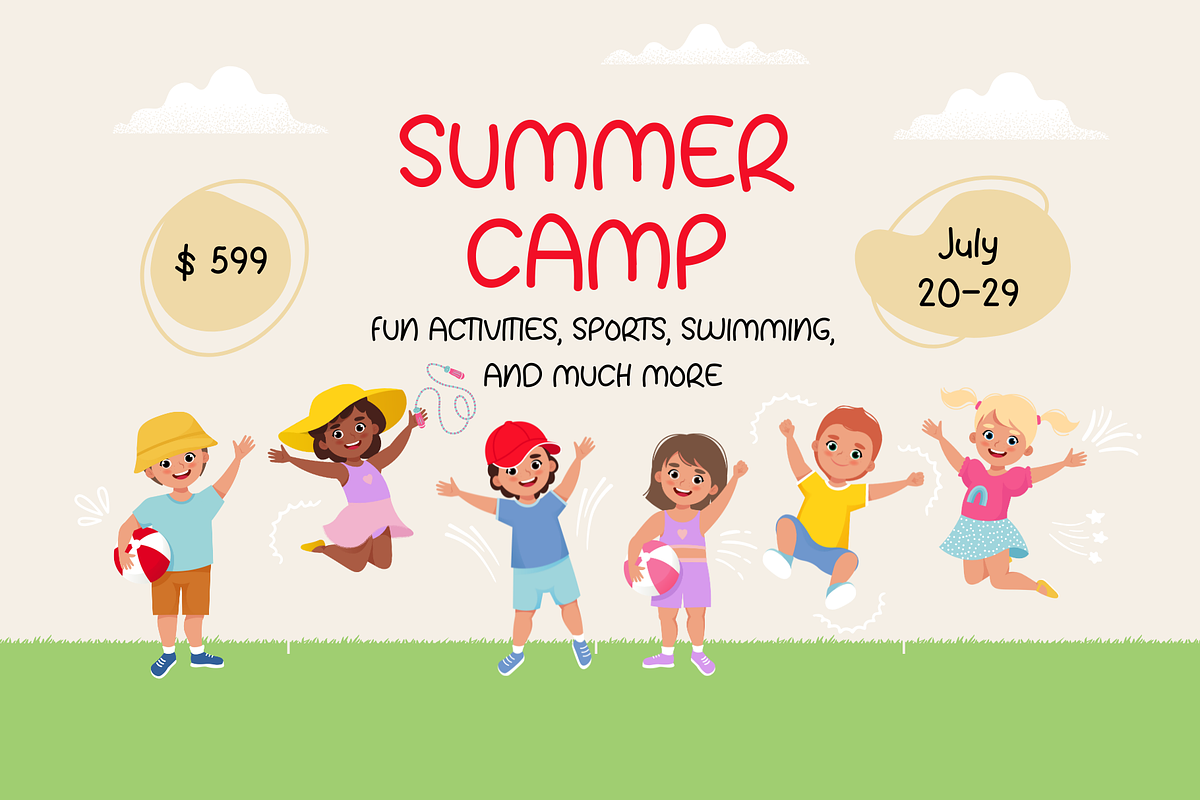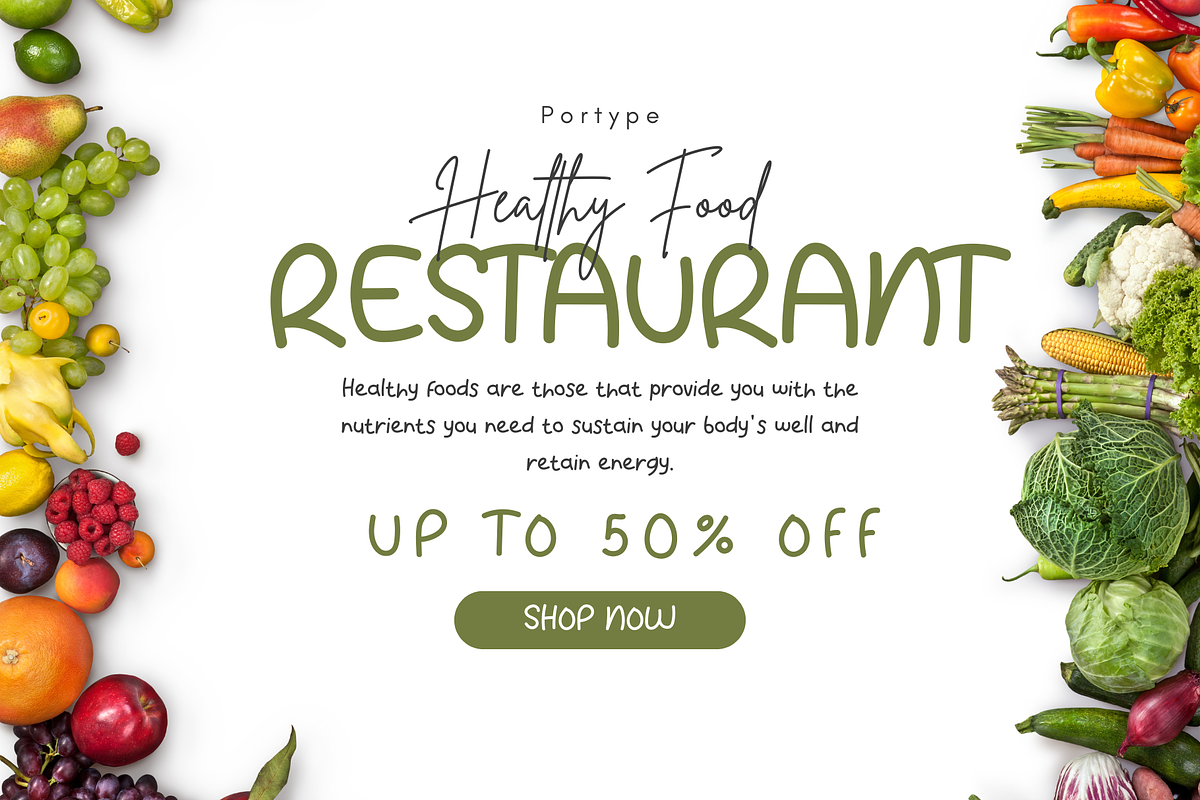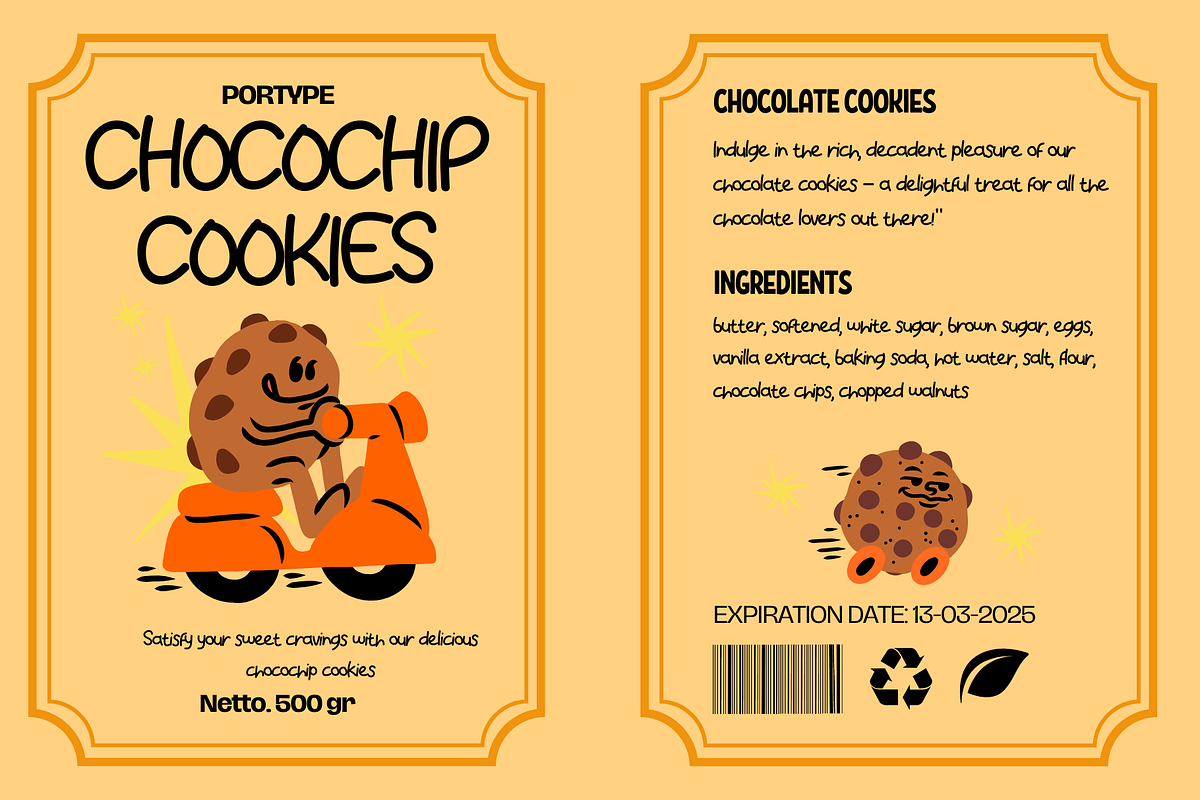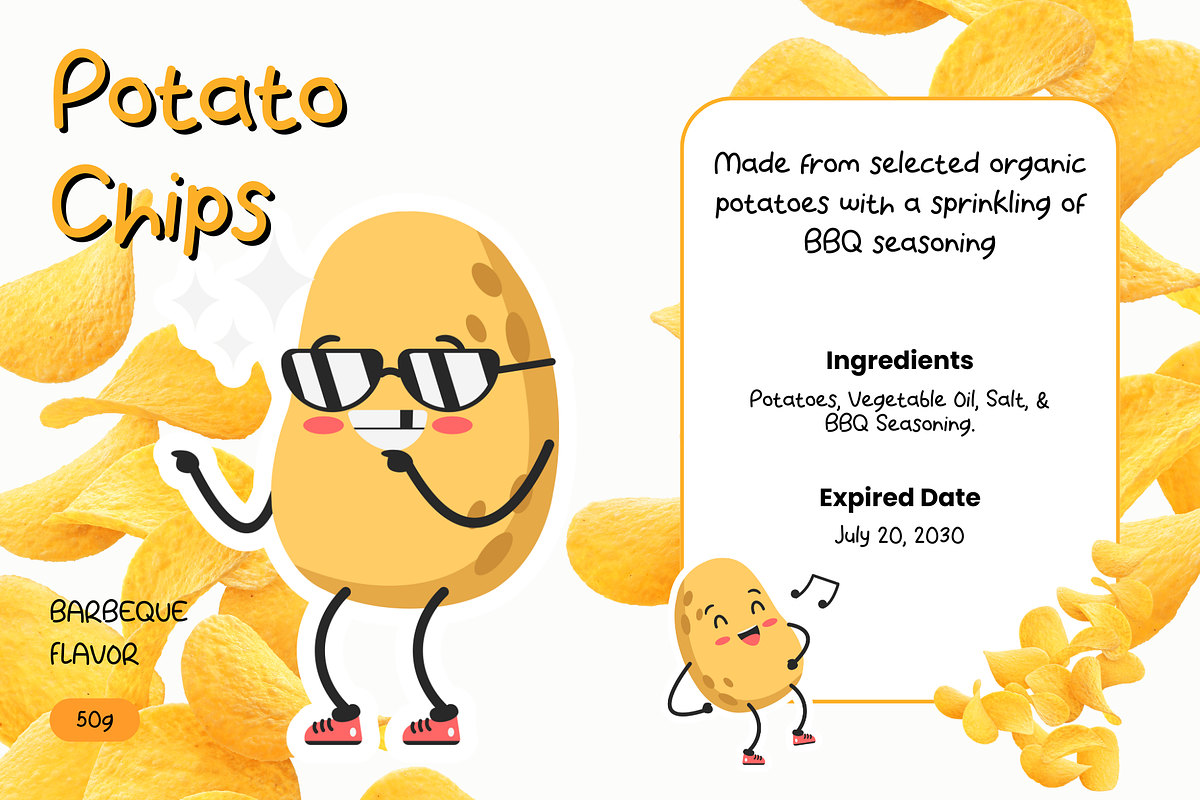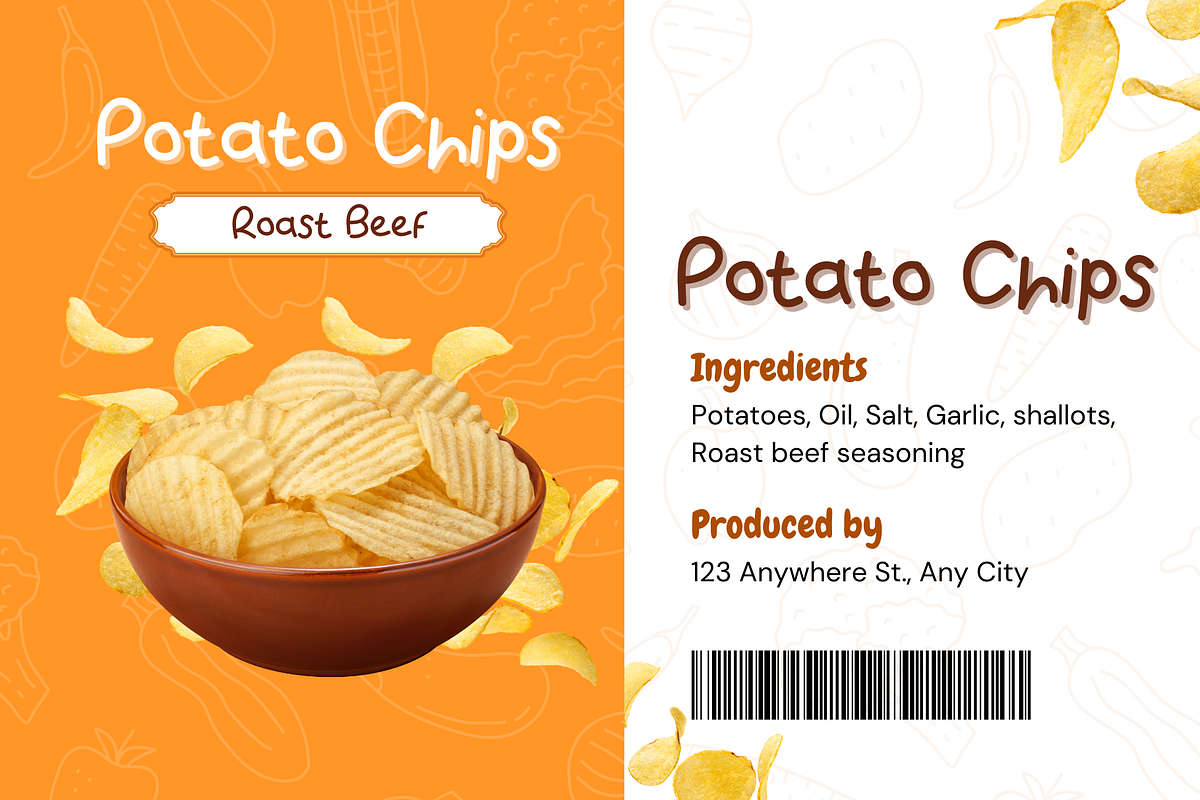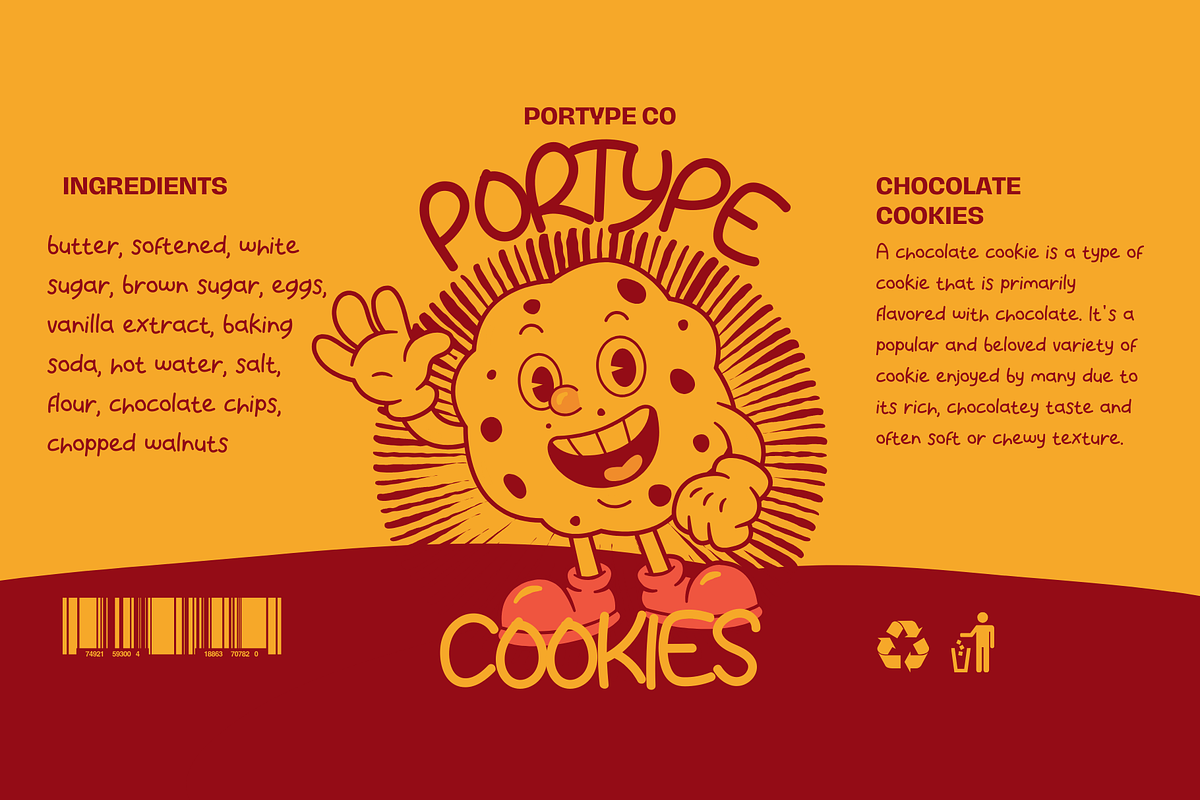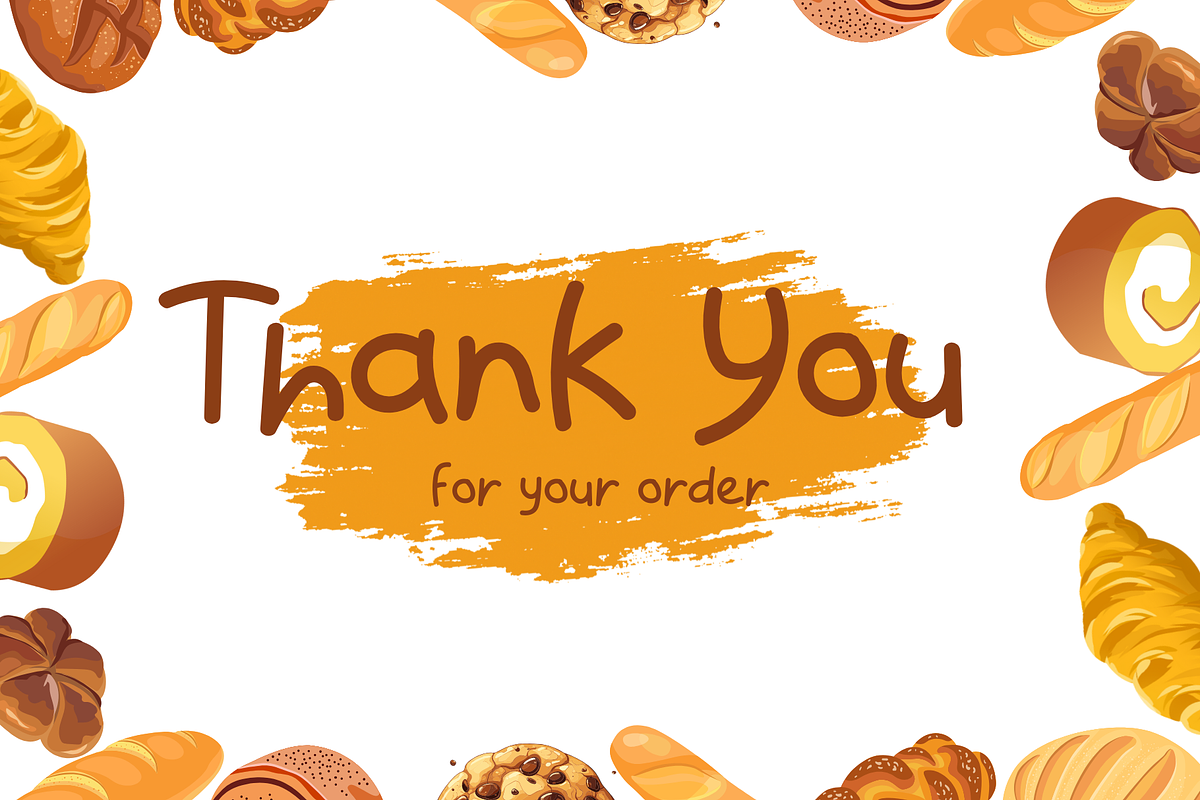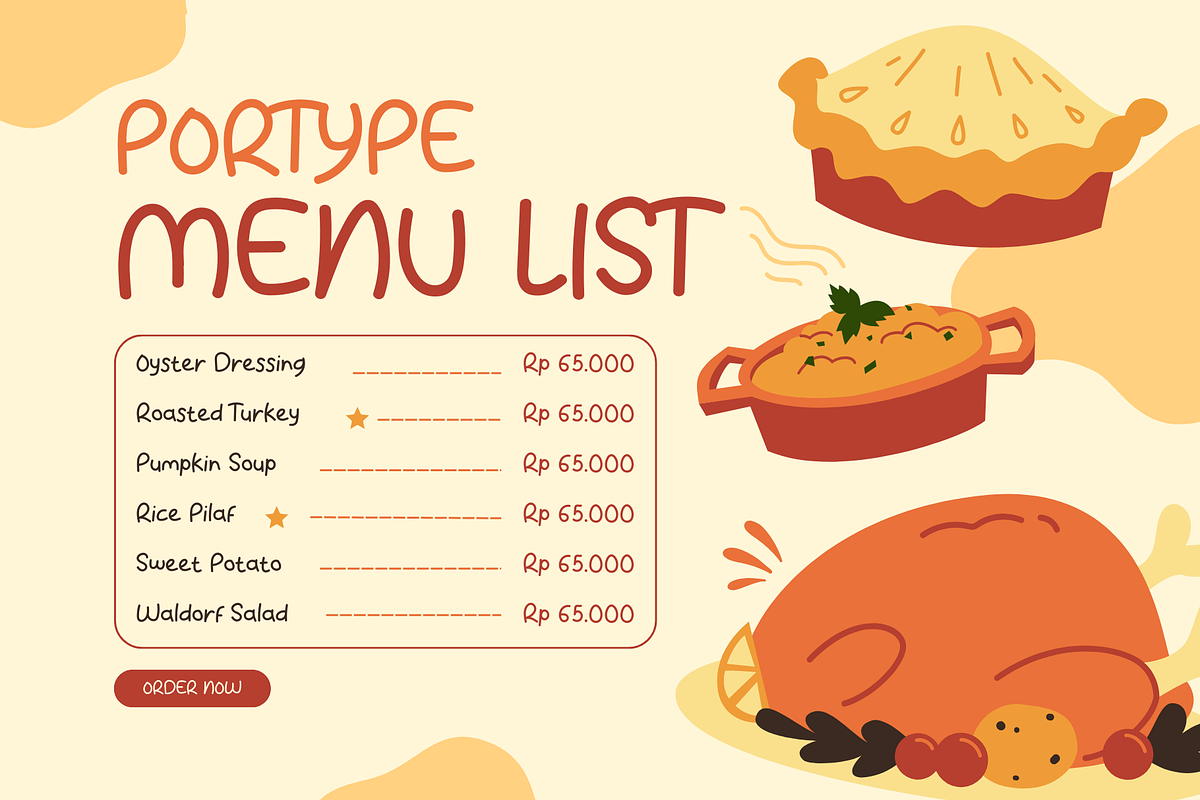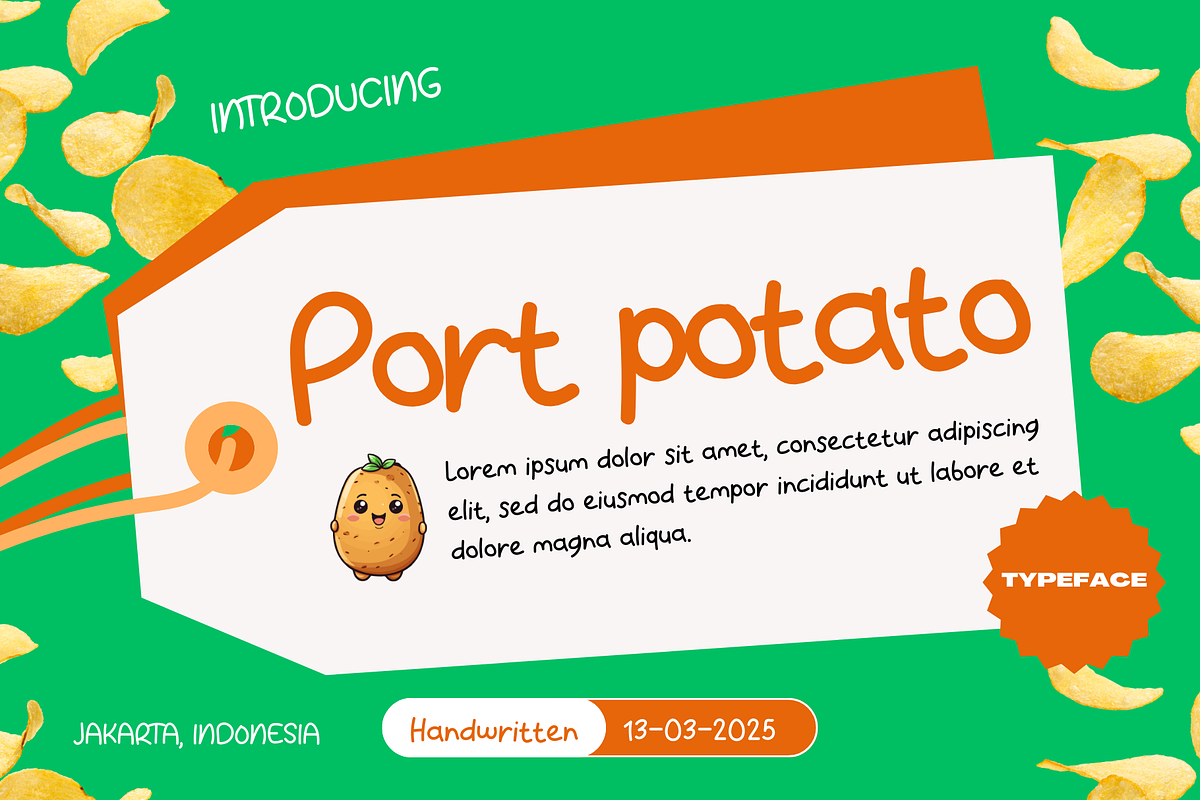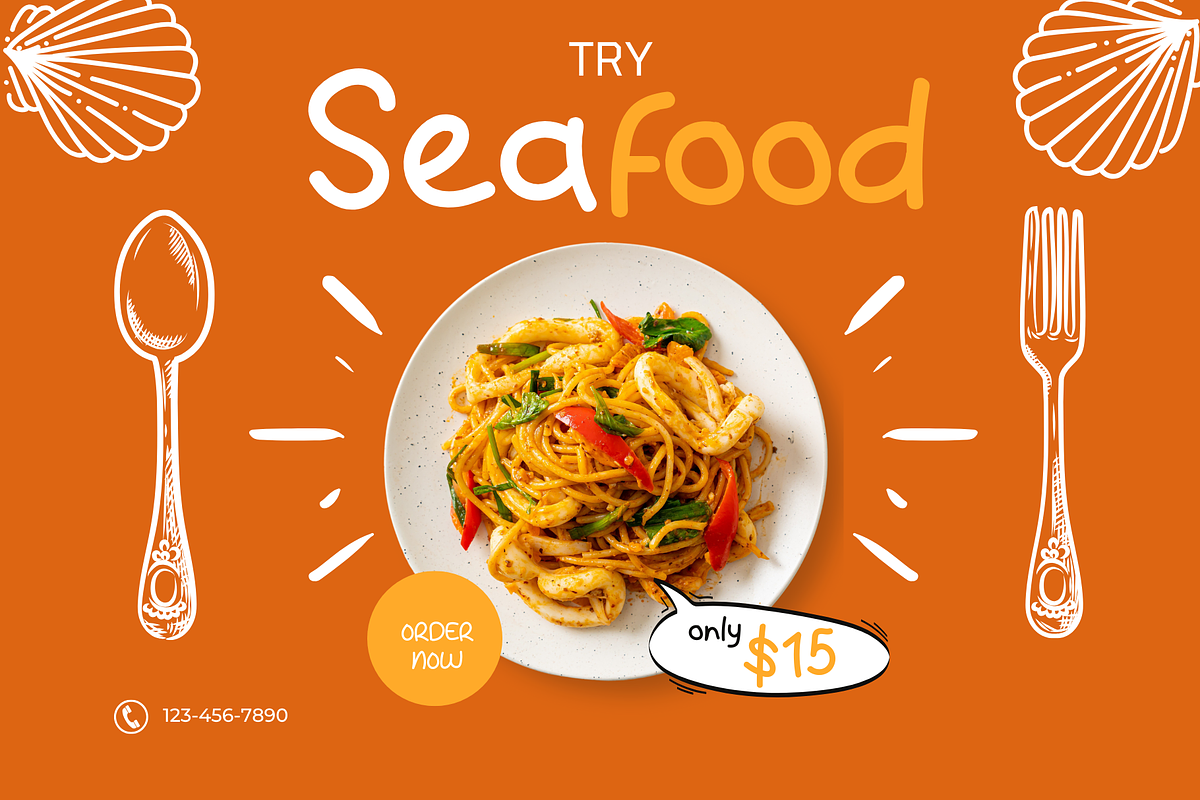
Port Potato -handwritten
Port Potato is a handwritten font inspired by the organic, irregular shapes of potatoes. It has a natural, slightly wobbly feel that gives it a warm and friendly character. This font is perfect for branding, packaging, illustrations, and creative projects that need a casual and approachable touch. Its unique, hand-drawn style adds personality and authenticity to any design.**